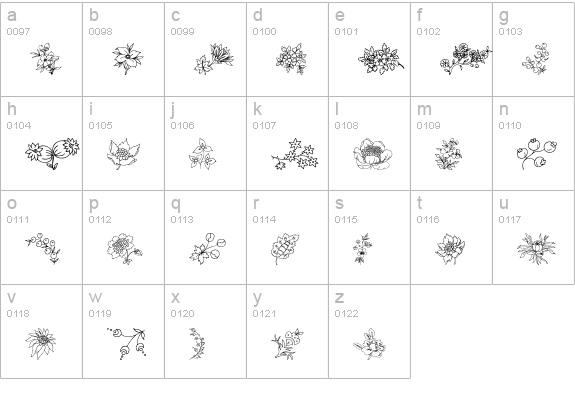
Traditional Floral Design Font Details
Traditional Floral Design font is a captivating and elegant typeface that effortlessly combines the beauty of traditional floral motifs with modern design elements. With its intricate and delicate strokes, this font exudes a timeless charm that is perfect for adding a touch of sophistication to any project. The Traditional Floral Design font is a true work of art, meticulously crafted to bring to life the graceful curves and intricate details of blooming flowers and foliage. Each letter is thoughtfully designed, with swirls and flourishes reminiscent of intricate floral patterns found in traditional art forms. This font is versatile and can be used for a wide range of projects, from wedding invitations and event stationery to branding materials and product packaging. Its classic and timeless appeal make it suitable for both formal and informal designs, adding a touch of elegance and refinement to any piece of work. What sets the Traditional Floral Design font apart is not only its stunning visual aesthetics but also its availability as a free download at FontsMarket.com. This means that you can easily access and utilize this beautiful font to enhance your creative projects without any cost. Whether you are a professional designer or a hobbyist, this freely available font allows you to bring a touch of traditional floral beauty to your designs, without breaking the bank. So, if you are looking to add a touch of sophistication and elegance to your designs, look no further than the Traditional Floral Design font. With its timeless charm and freely available download at FontsMarket.com, this font is sure to elevate your creative projects to new heights, captivating your audience with its delicate floral-inspired aesthetics.